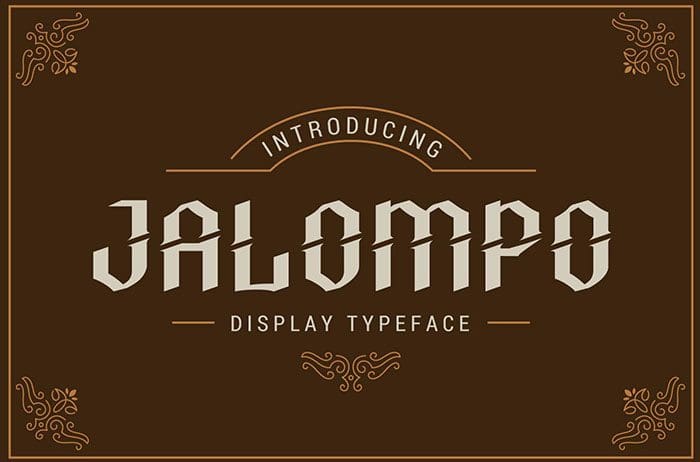
Jalompo Display Font
Jalompo is a Display Font inspired from graffiti culture, with alternative glyphs and swashes. It is perfect for apparel, logo, social media posts, and more. Thanks to Patria Ari Typestudio for sharing this font! Take a look at this portfolio for more of his stunning fonts.